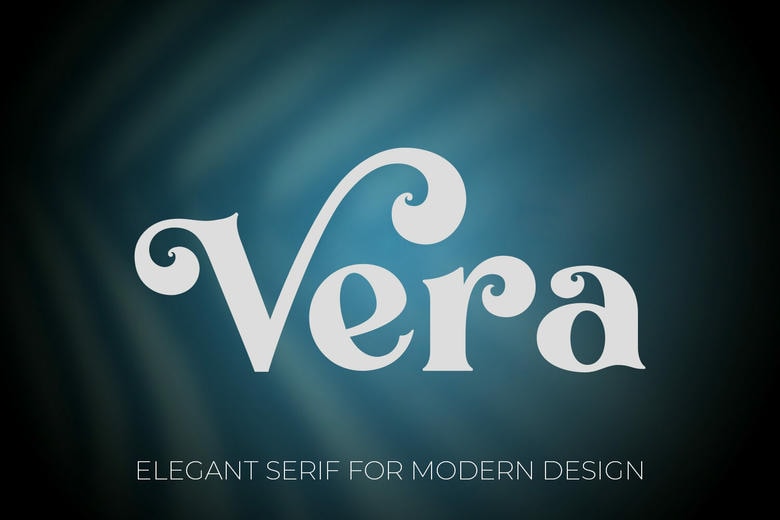
Vera Font
Vera is a classy luxury serif font that can add a classic glamour and ancient elegance to your works. Vera is a blend of vintage and modern elegant typography with graceful curves, stylish swashes and fancy letterforms.
The typeface is a versatile one that can be used in branding, logos, editorial layouts, fashion magazines, packaging, wedding invitations, book covers, posters, and designs of luxury products. The sophistication of its decoration serif and its fluid lines qualifies it to be an embodiment of a luxury design project where luxury and character are crucial.
Vera fits best with old-fashioned themes, contemporary branding, and fashionable typography designs. Be it the fashion, beauty brands, boutique packaging, invitations or high-end advertising, Vera gives an elegant and sophisticated touch to any design.
It consists of both lowercase and uppercase characters, numbers, punctuations, and ornamental characters, which enables designers to build distinctive typographical designs in both style and flexibility.
Vera Serif Font